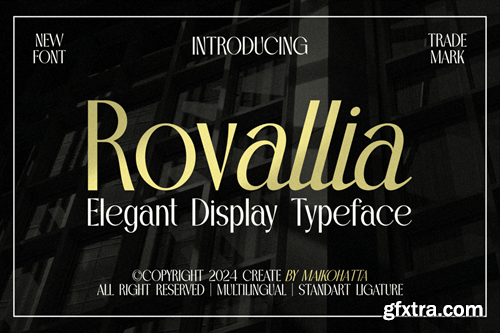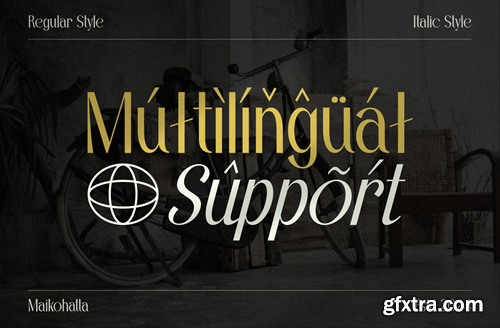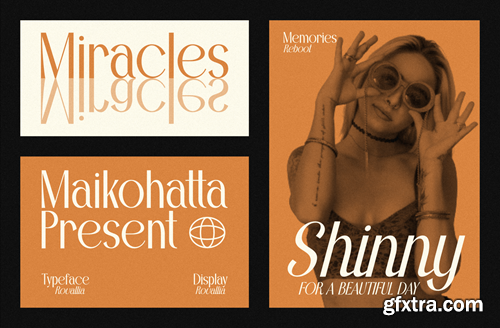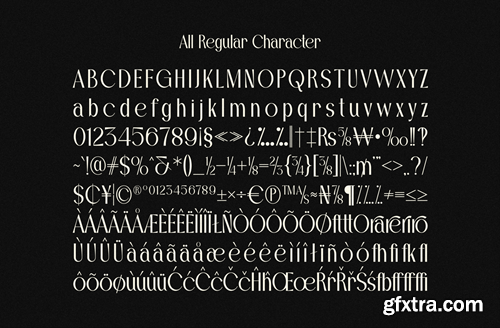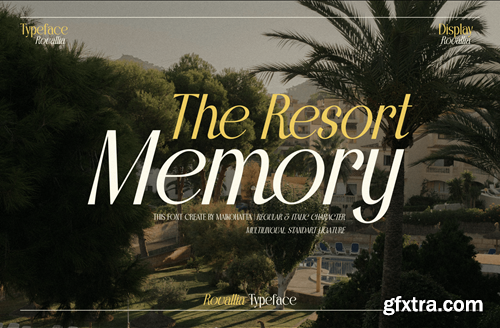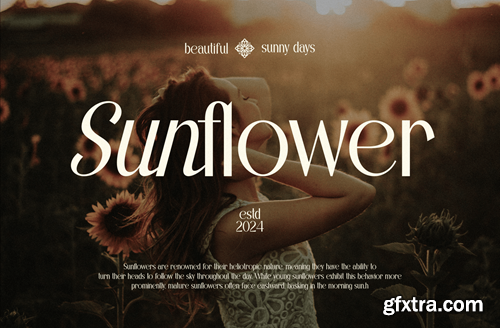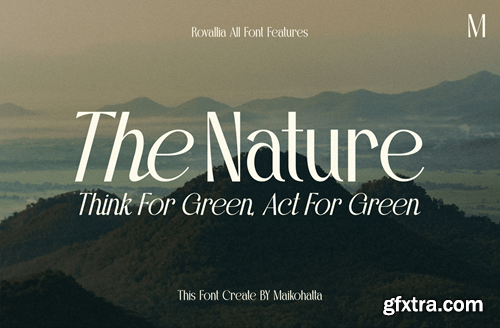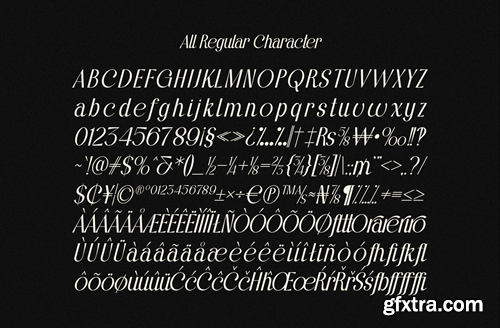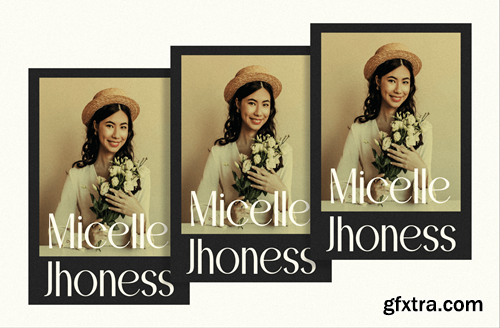
罗瓦莉亚 - 美丽展示字体GWC8FJA
Rovallia - Elegant Display Typeface GWC8FJA
Rovallia - Elegant Display Typeface
Introducing our new product Rovallia - Elegant Display Typeface
This font is a typographic masterpiece that harmonizes elegance and sharpness. Every letter within this font is meticulously designed, with a keen focus on balanced proportions and impeccable alignment. This font is well-suited for a variety of contexts, such as print design, promotional materials, or magazine layouts.
• Uppercase
• Lowercase
• Multilingual
• Ligature
Style
• Regular
• Italic